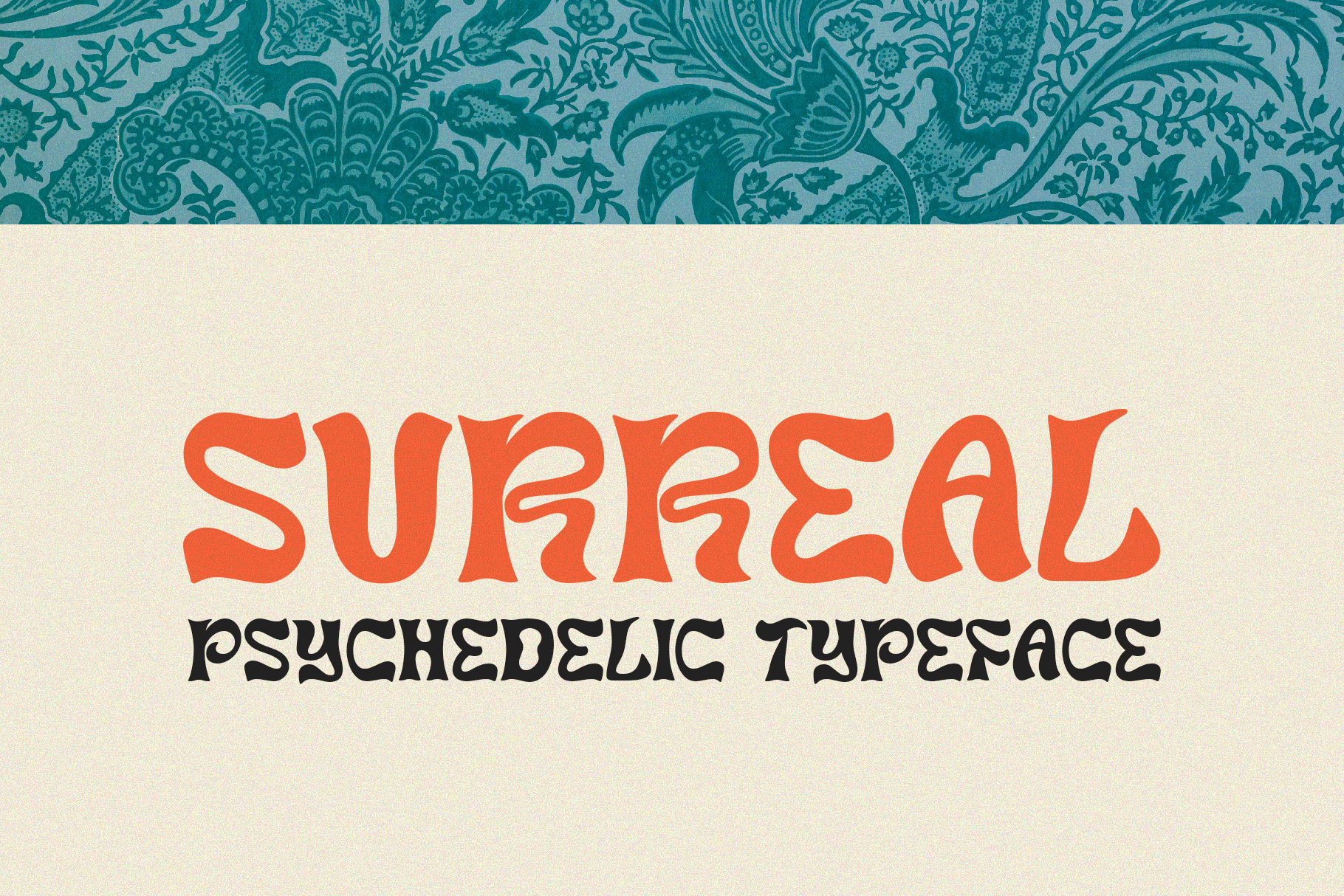
Surreal – Psychedelic Typeface
Surreal is a hand drawn psychedelic font perfect for groovy posters, experimental artwork, and rad design projects. It was inspired by the psychedelic movement of the mid 60's. Since this one of-a-kind typeface is not seen everyday, your design projects are bound to grab the reader's attention.